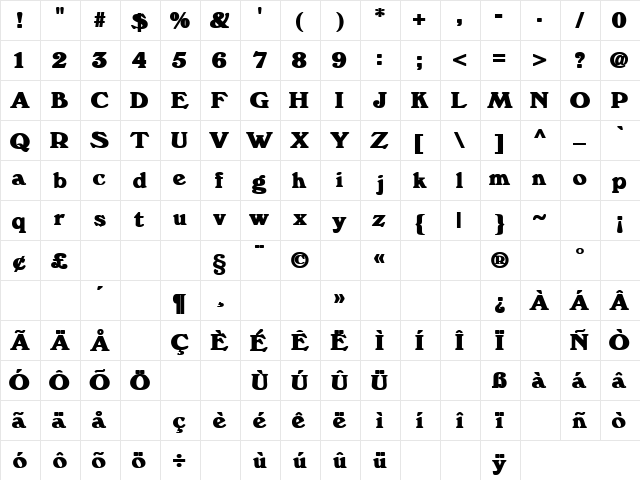
Unemployment 1 Regular Font Preview
Unemployment 1 Regular
Design Context for Unemployment 1 Typeface
Unemployment 1 takes a measured approach to typography — its balanced proportions and neutral character make it a reliable workhorse for both digital and print work.